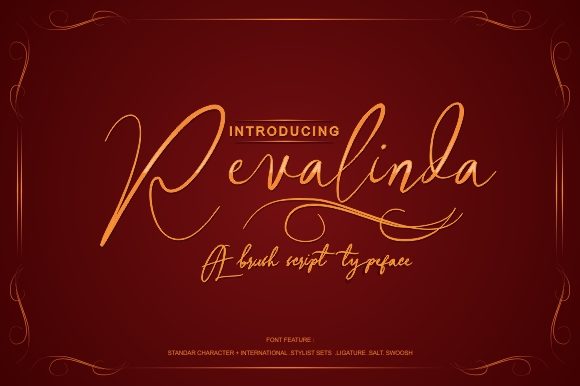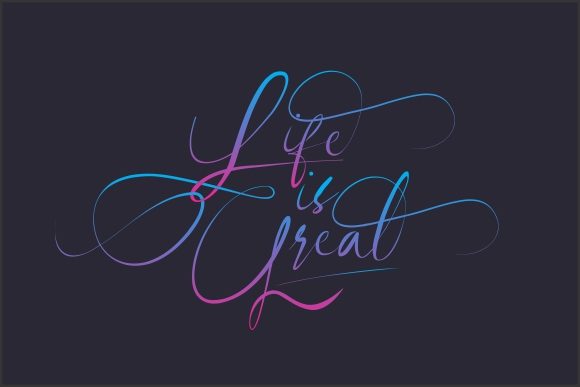
Revalinda Font
About Revalinda Font
The Revalinda is a natural handwritten look. It has a charming look and is suitable for designs that require a feminine theme.